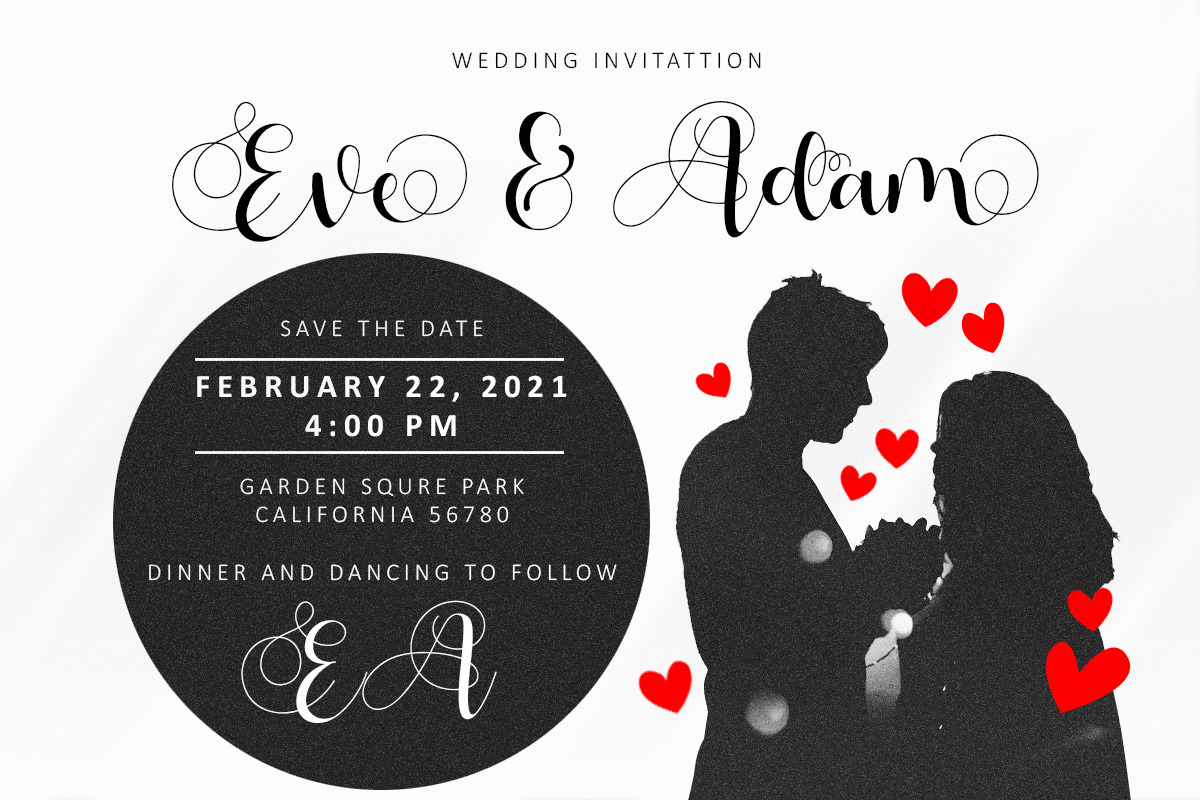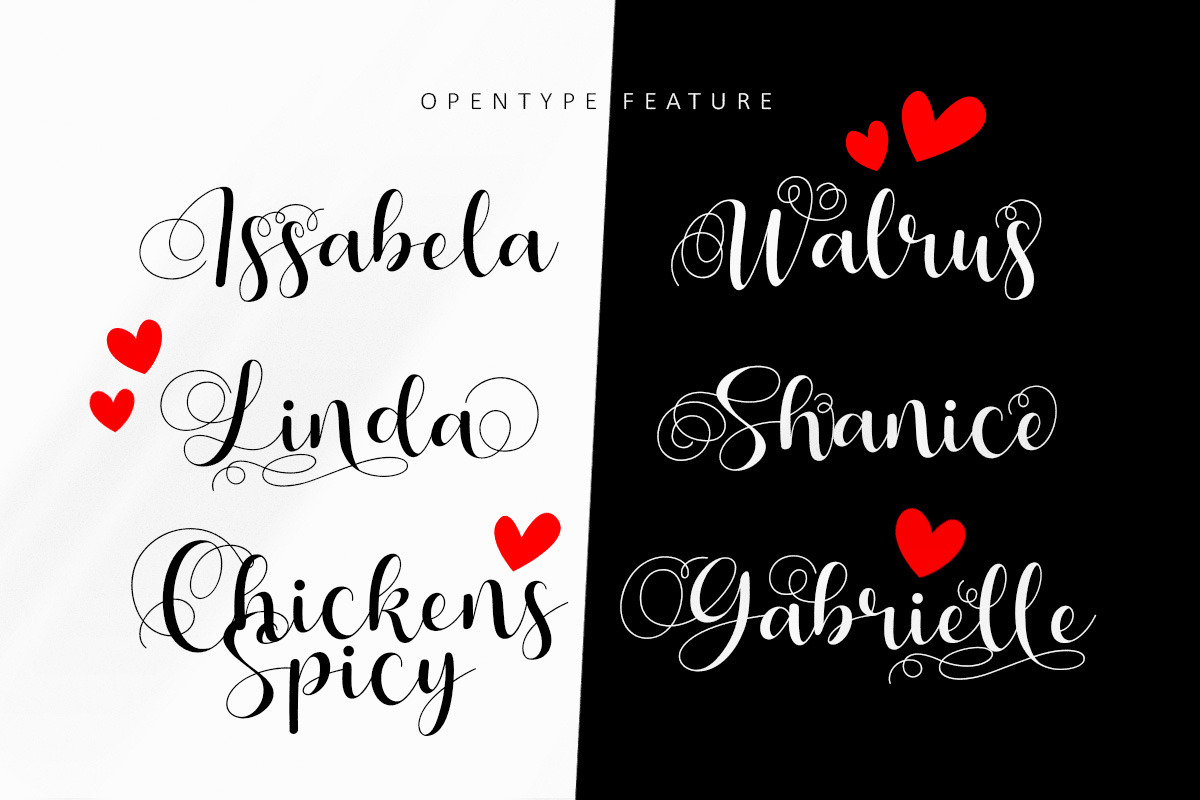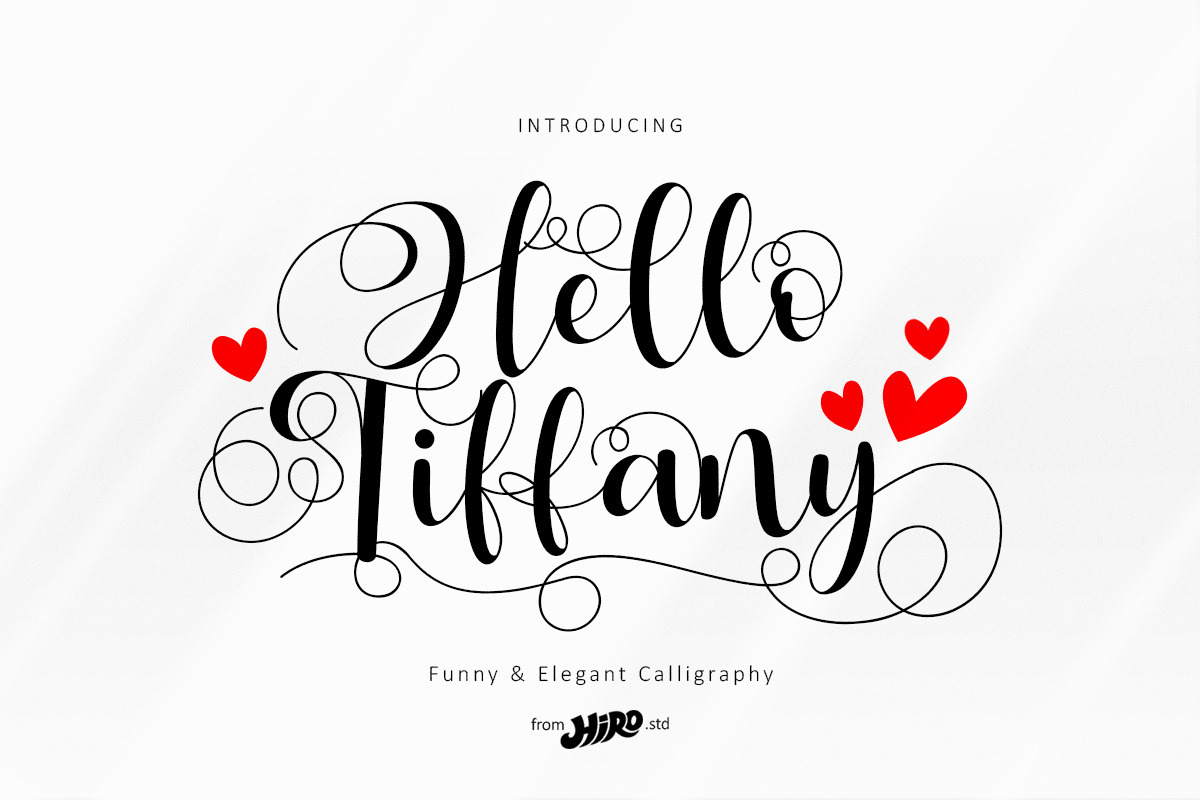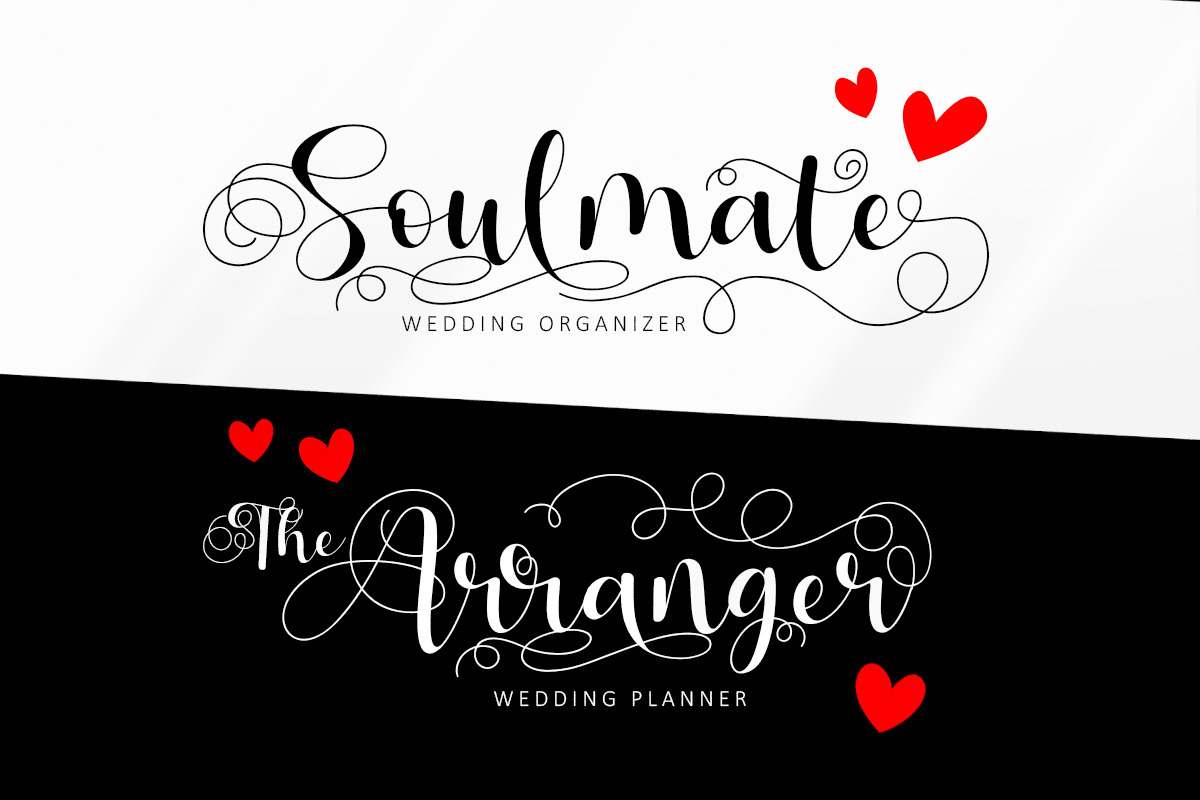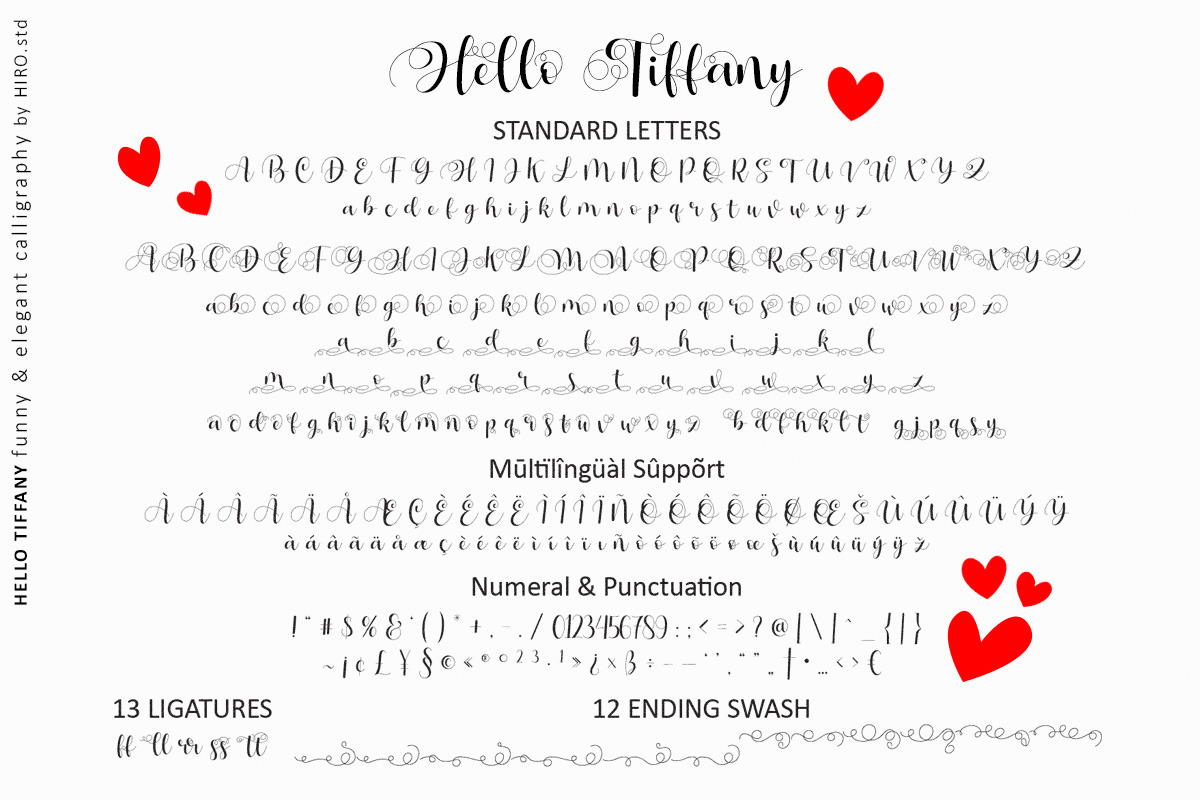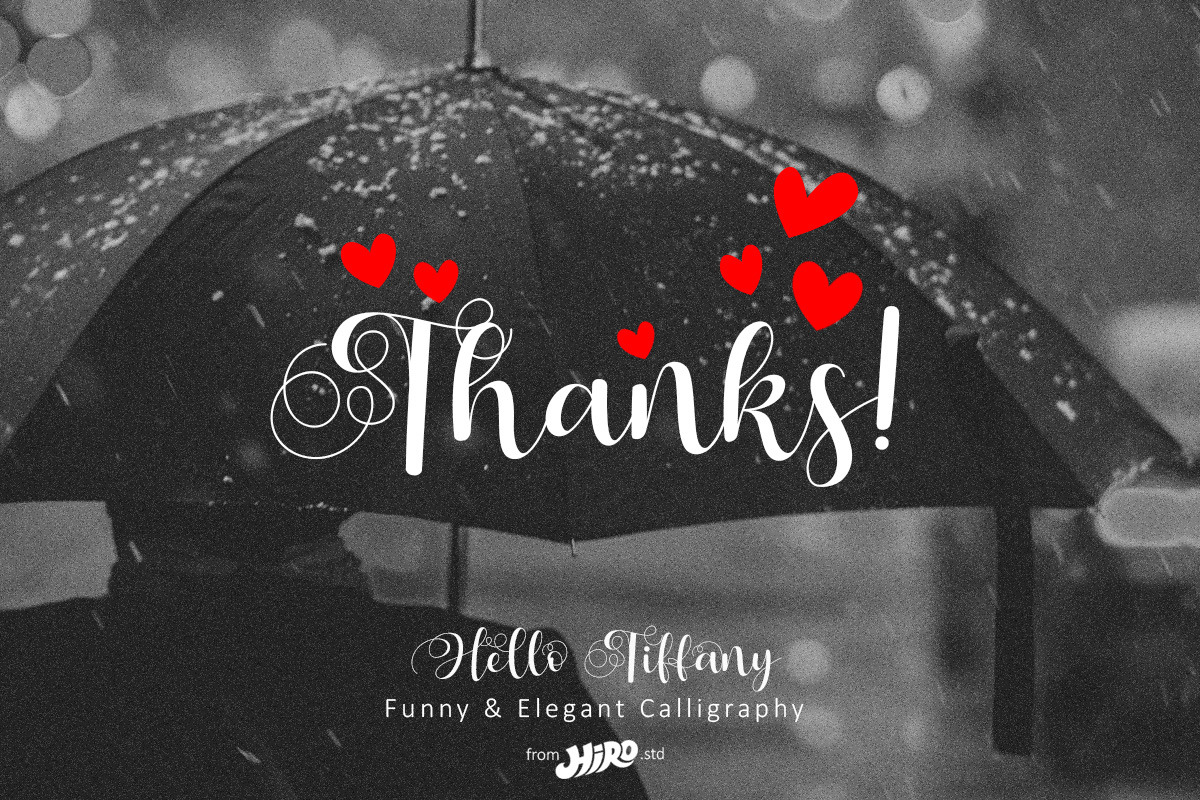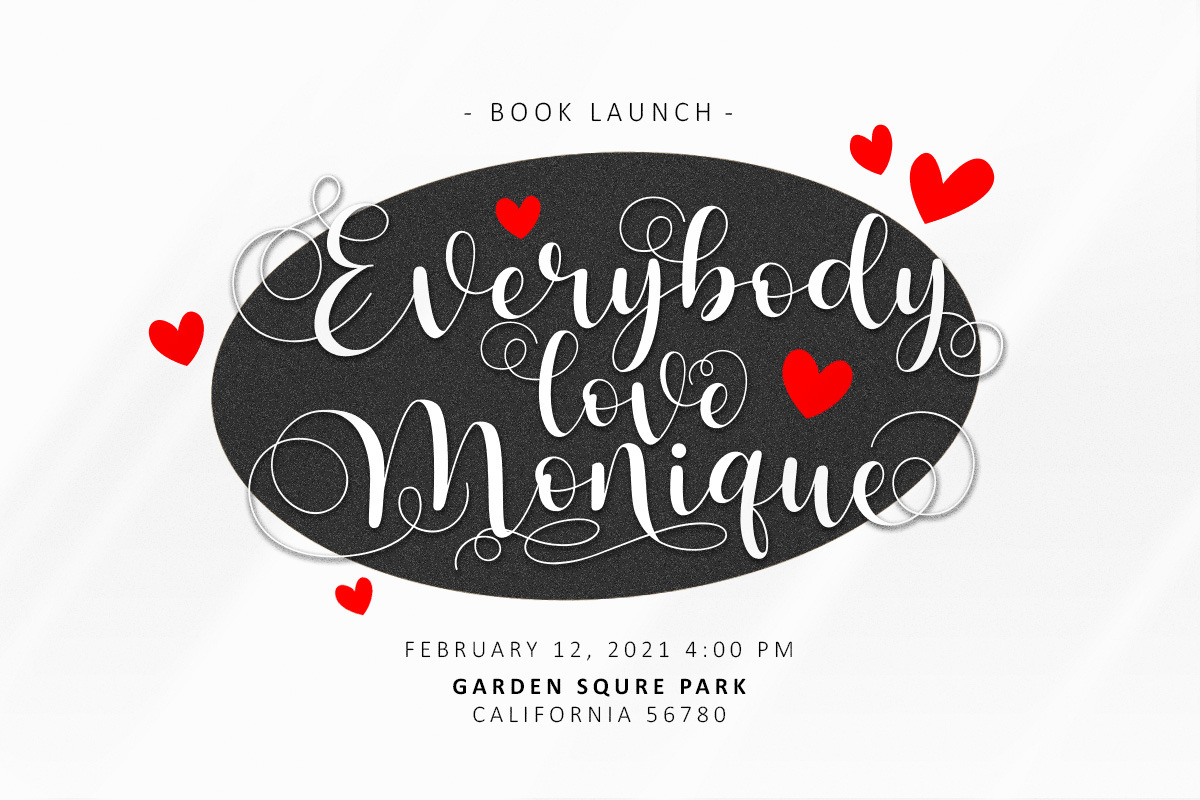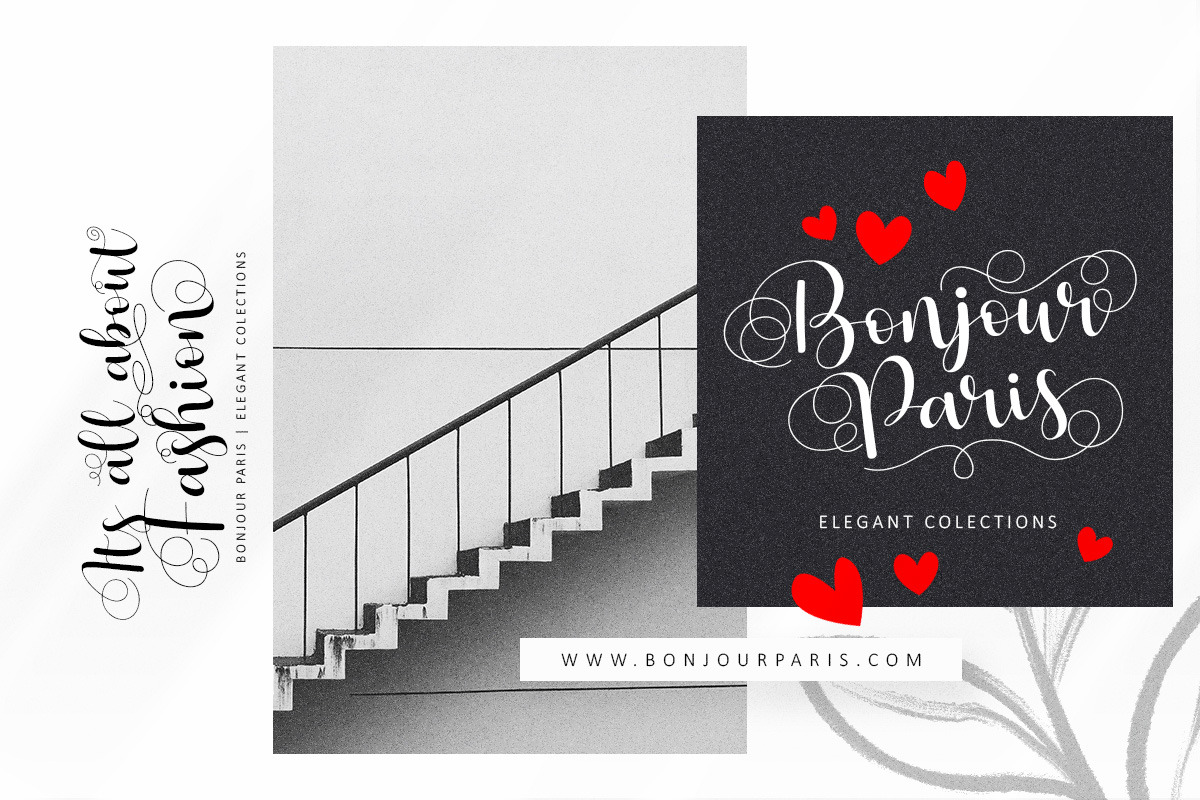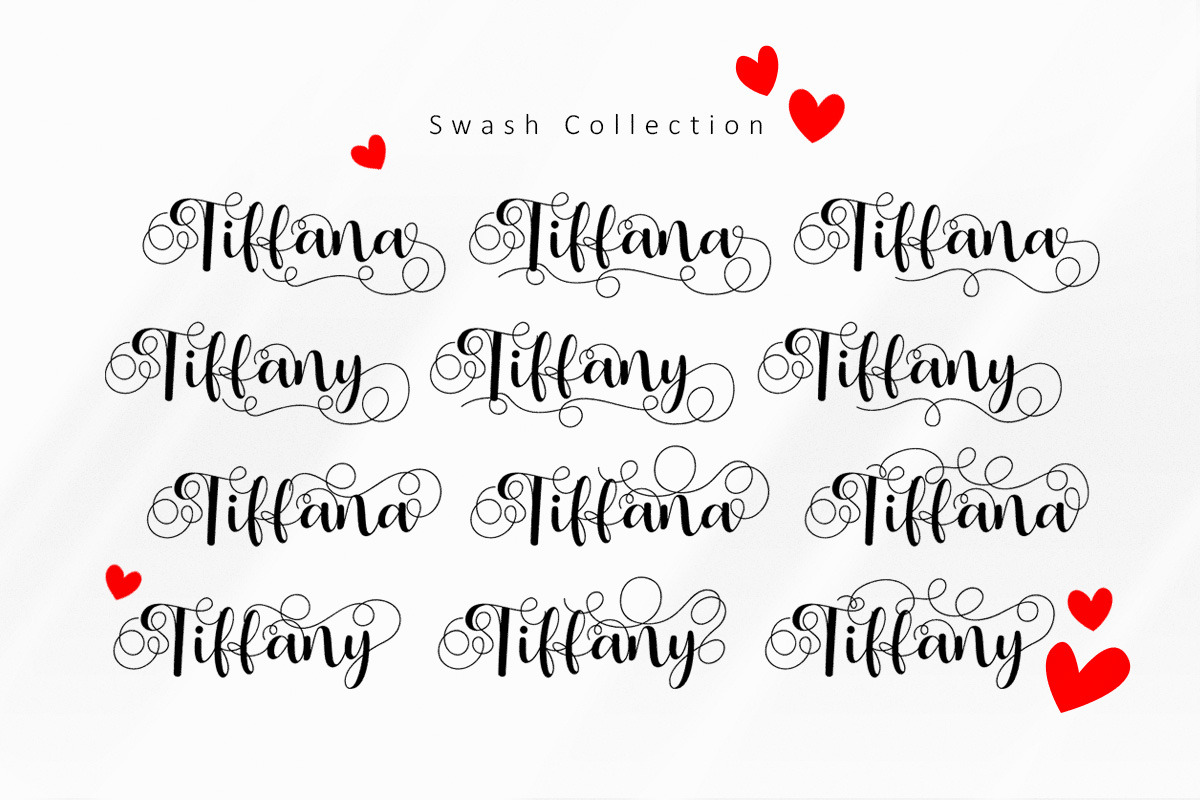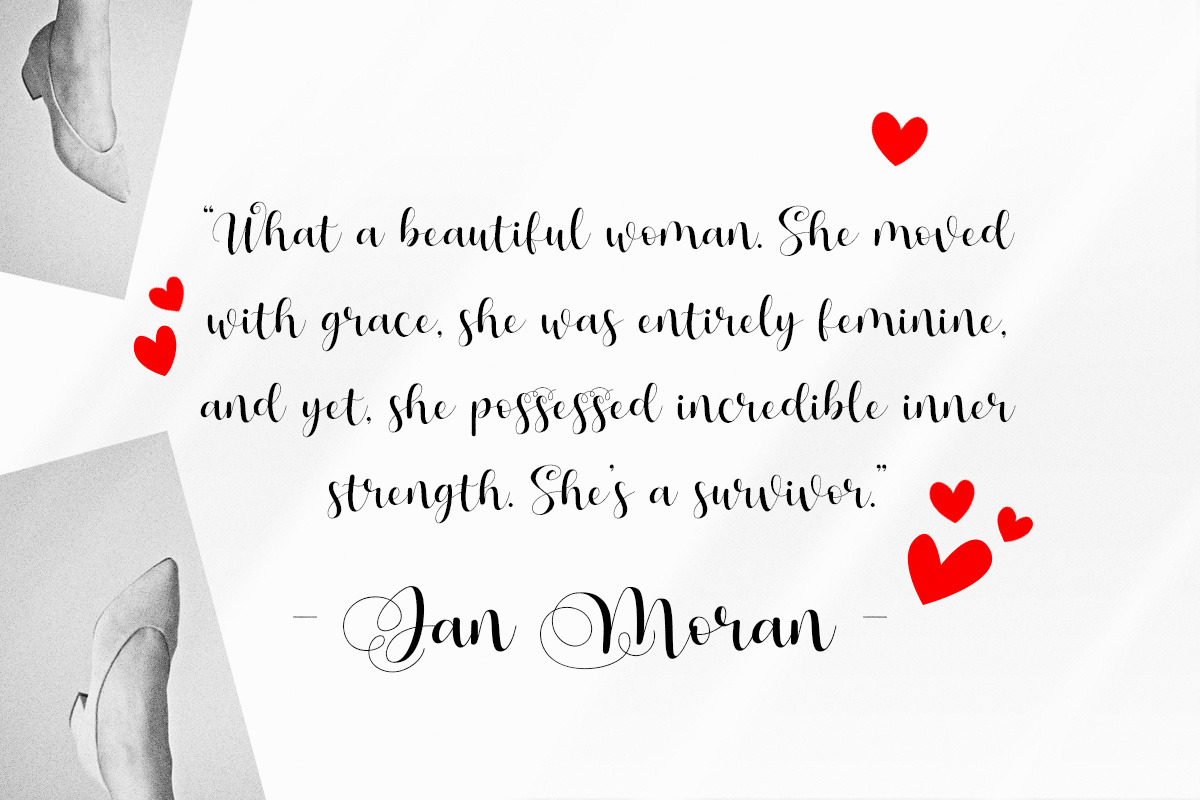
Hello Tiffany - Script Font
Hello Tiffany is a funny & elegant font.
This font describes about elegant, dynamic, stylish, funny, feminine, easy to use and will bring a good harmony when the letters are connected and paired each other.
- Support Opentype Features
- Variation Swash
- Support Ligatures
USE Hello Tiffany works great in any wedding invitations, branding, logotype, quotes and any projects that need funny and elegant taste.